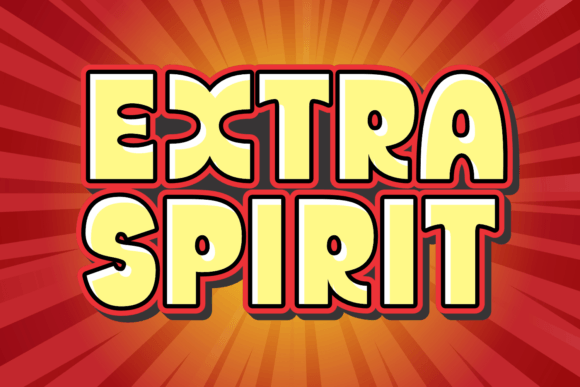
**Introducing Extra Spirit: The Font That Will Ignite Your Imagination**
Step into a world where creativity knows no bounds, where every letter dances with delight and every word paints a vibrant masterpiece. Allow us to introduce Extra Spirit, the enchanting display font that will transform your design dreams into extraordinary realities.
Crafted with love by the masterminds at Creative Fabrica Fonts, Extra Spirit is a symphony of elegance and playfulness that will captivate your audience from the very first glance. Its unique and eye-catching curves will ignite your imagination, inviting you to embark on an unforgettable typographic adventure.
Whether you're crafting whimsical posters that transport children to magical realms, designing book covers that ignite their curiosity, or creating headlines that demand attention, Extra Spirit is your faithful companion. Its playful spirit will add a touch of magic to every project, ensuring that your designs leave an unforgettable mark.
But Extra Spirit is not just a pretty face; it's a versatile performer that thrives in a myriad of creative endeavors. From eye-catching apparel that sparks conversations to advertising materials that drive sales, this font will elevate your designs to new heights. Even the most mundane apps and websites will come alive with its infectious charm.
So, if you're ready to unleash your creativity and create designs that will make hearts skip a beat, look no further than Extra Spirit. Its enchanting spirit will inspire you to dream big, push boundaries, and leave a lasting impression on the world.